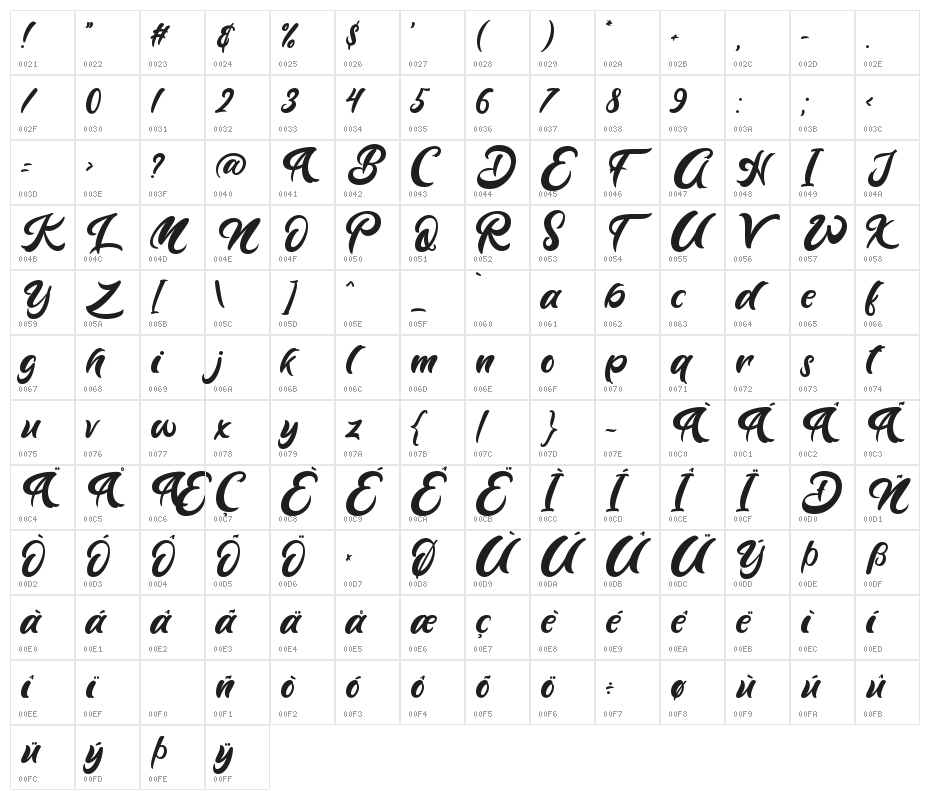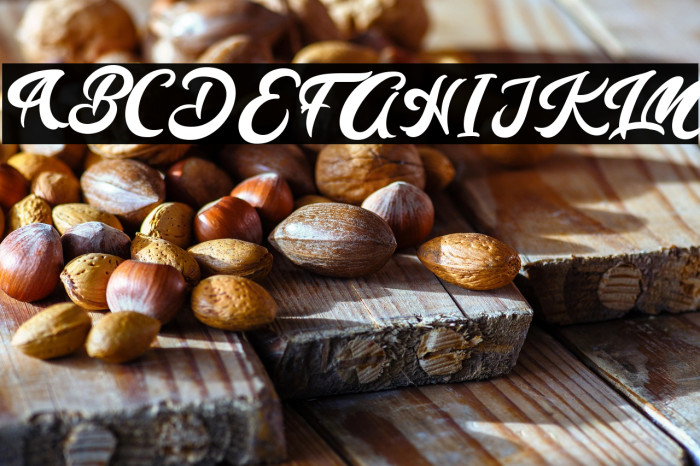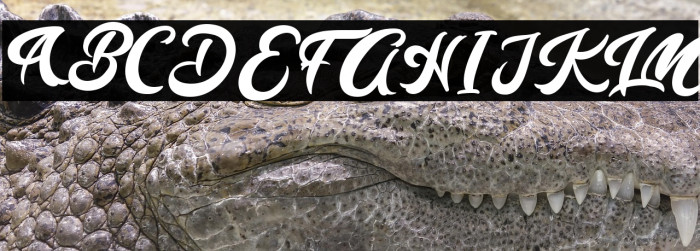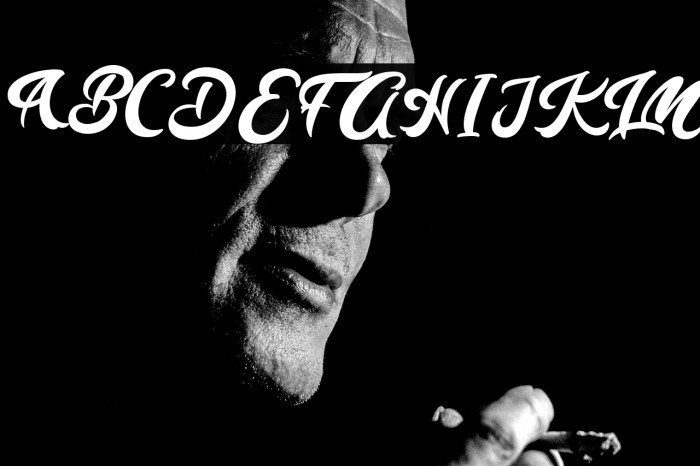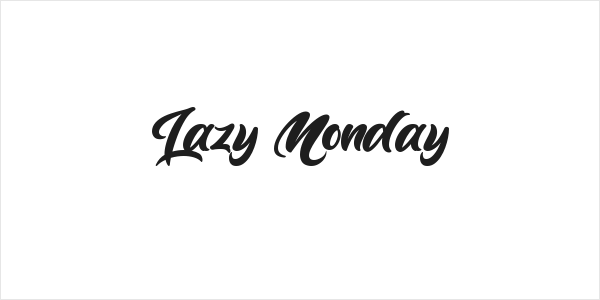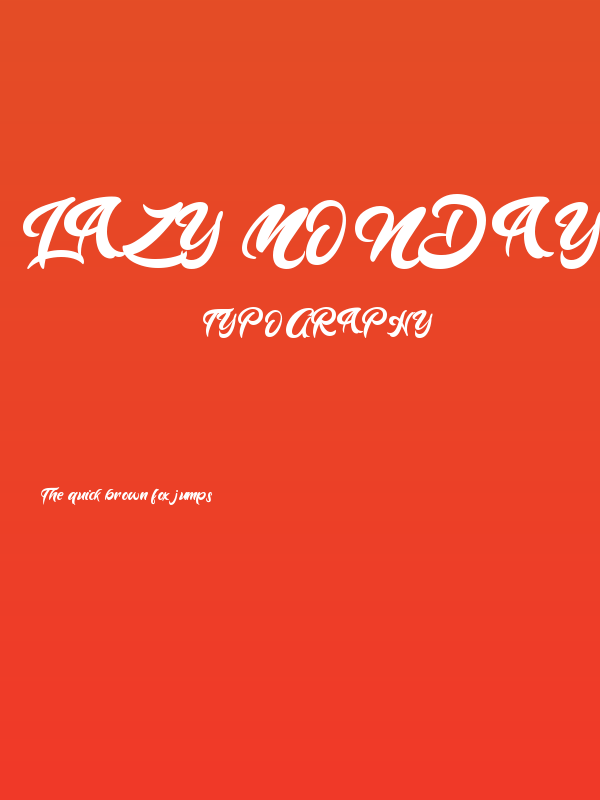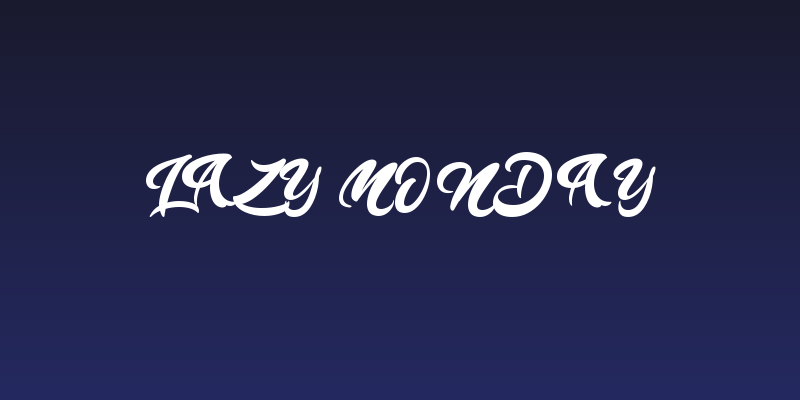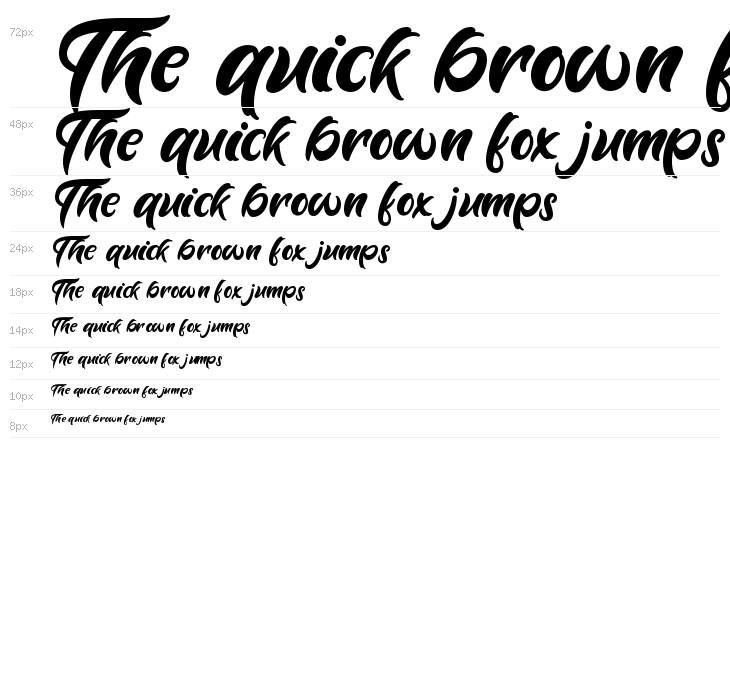
Lazy Monday Font
Lazy Monday Description
This font features a bold and expressive script style with a flowing, cursive design. The characters are interconnected, giving a sense of continuity and movement. The uppercase letters are ornate with flourishes, while the lowercase letters maintain a consistent, rounded form. The numbers and special characters are designed to match the overall aesthetic, ensuring a cohesive look. The font's strokes are thick, providing a strong visual impact, and the contrast between thick and thin strokes is moderate, enhancing readability while maintaining its decorative appeal.
| Proposed Projects | Ideal for invitations, greeting cards, branding, and logo design where a personal, artistic touch is desired. |